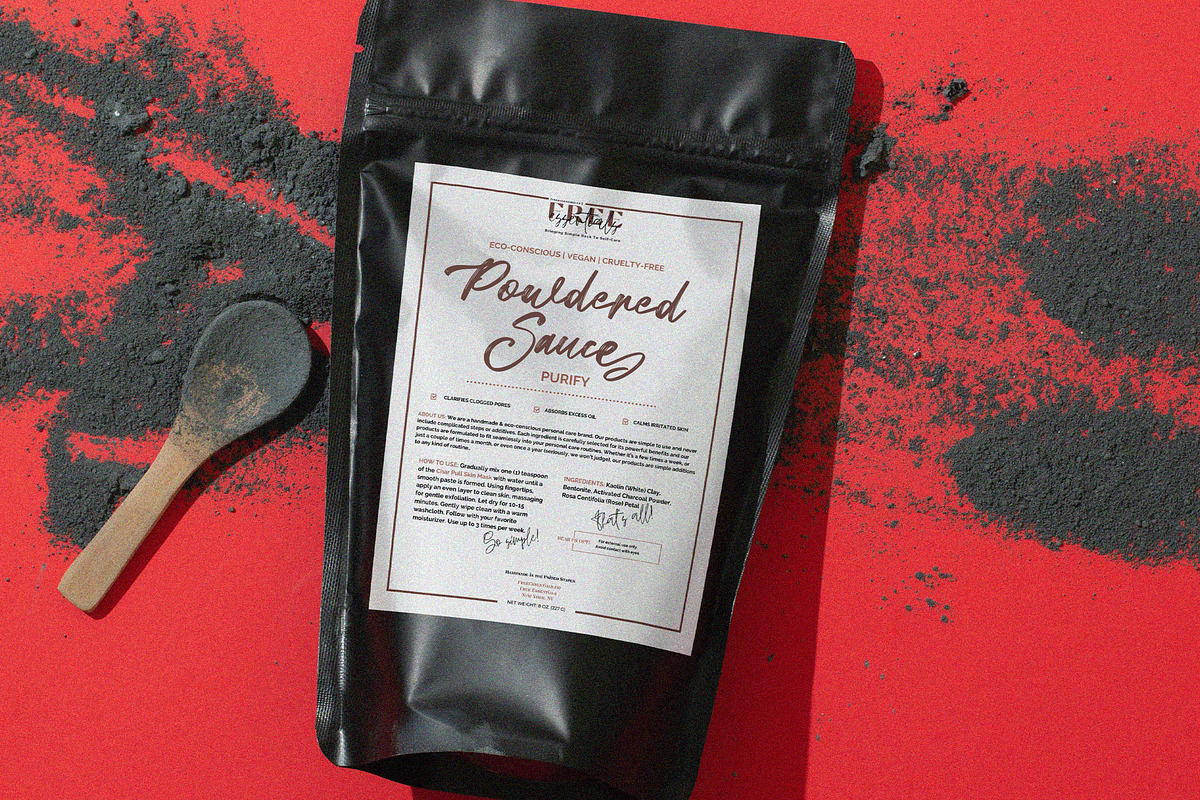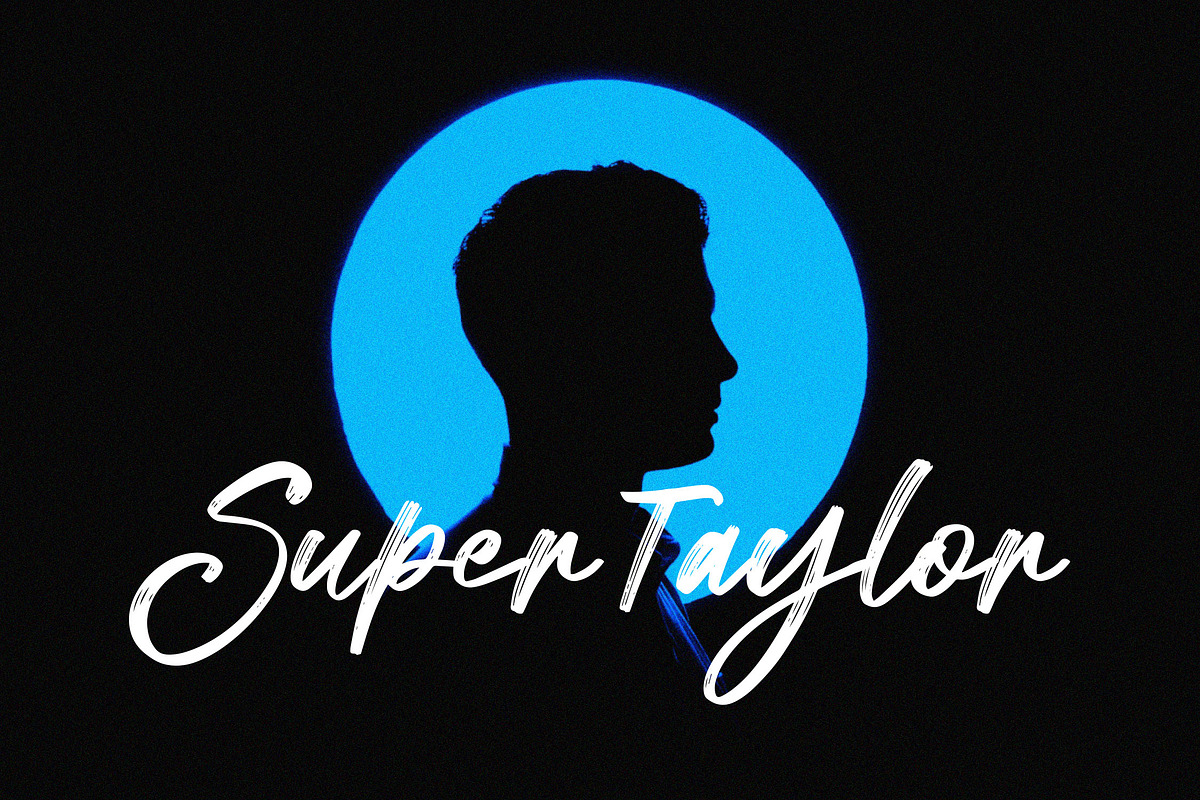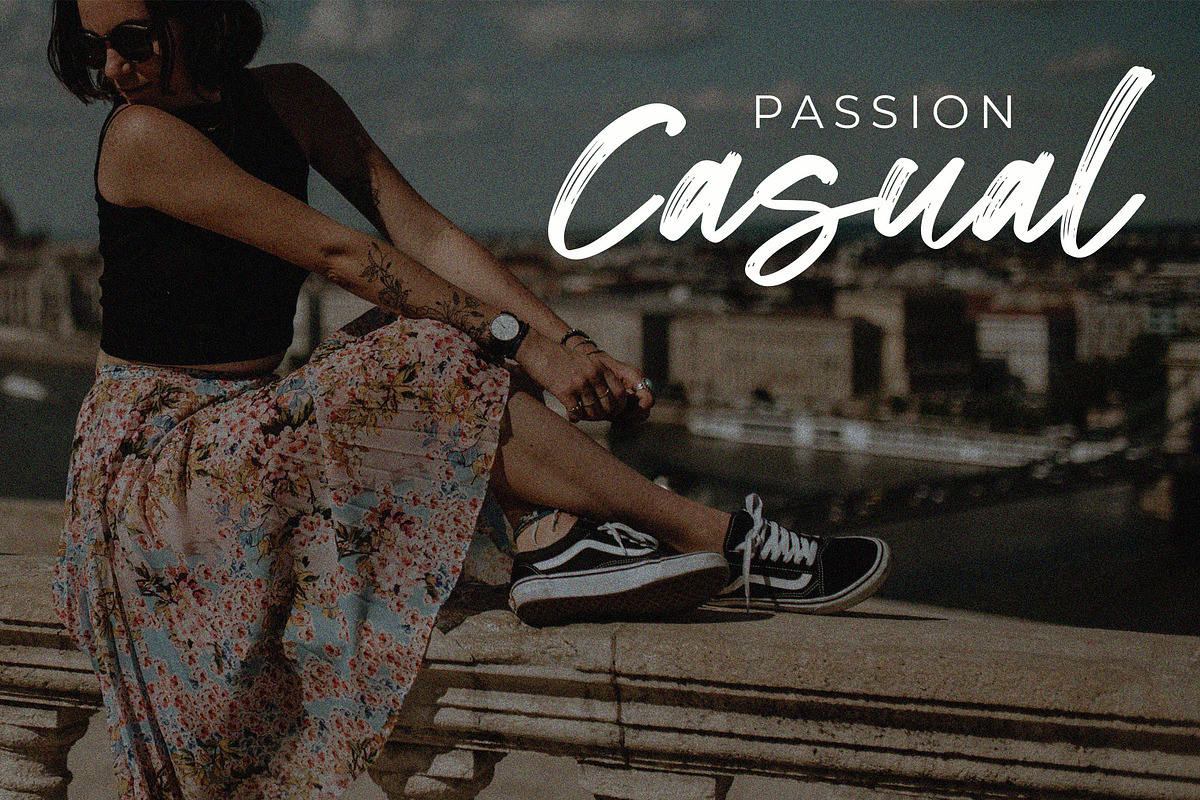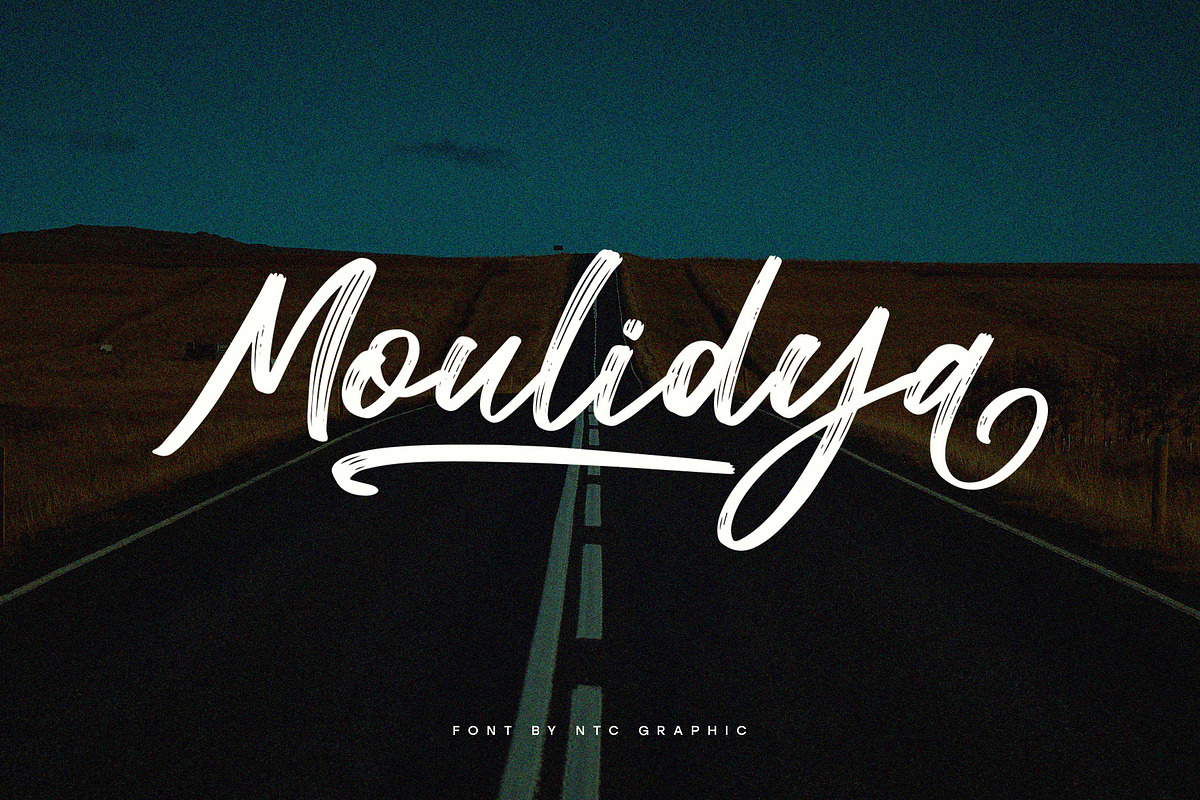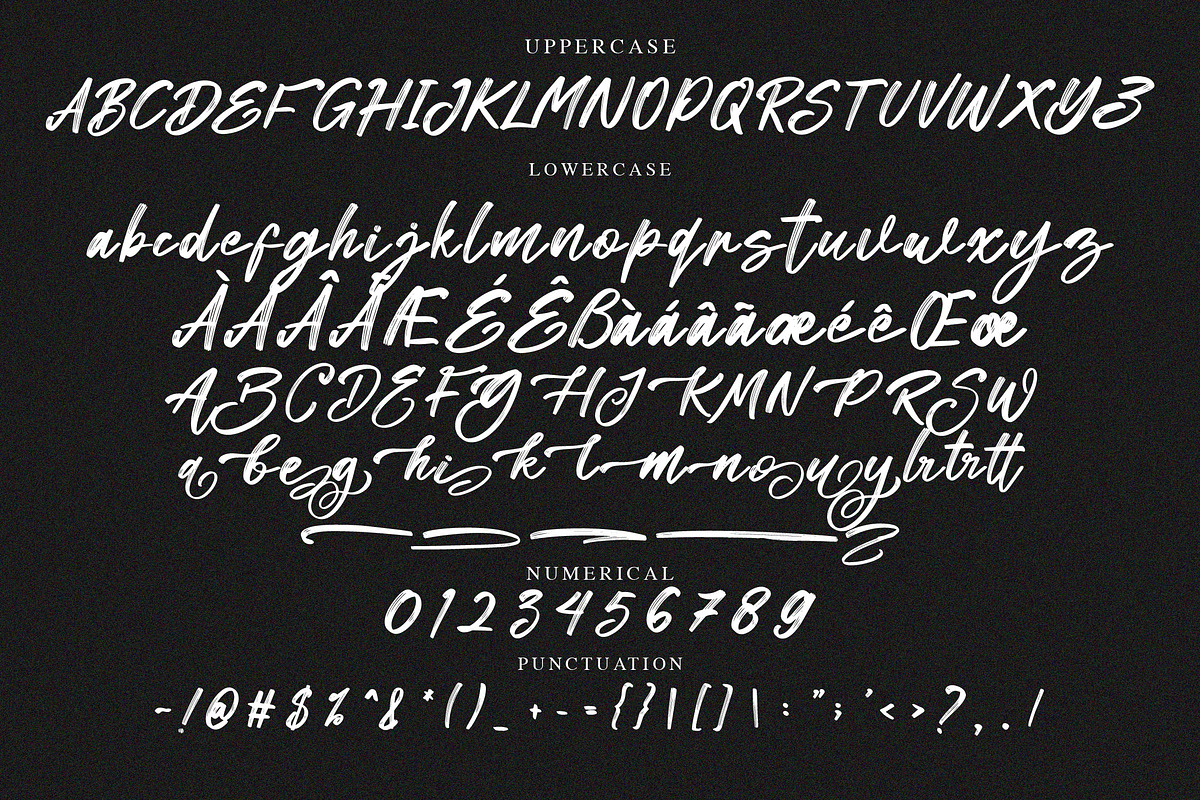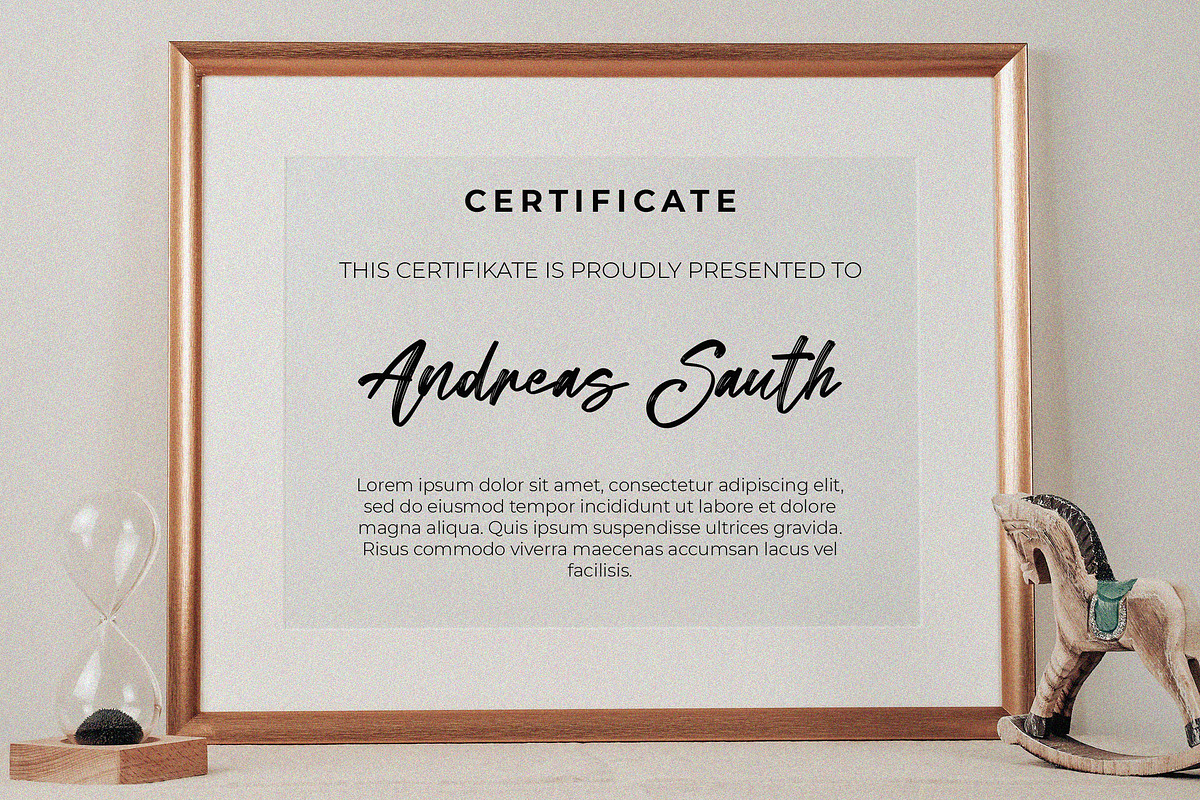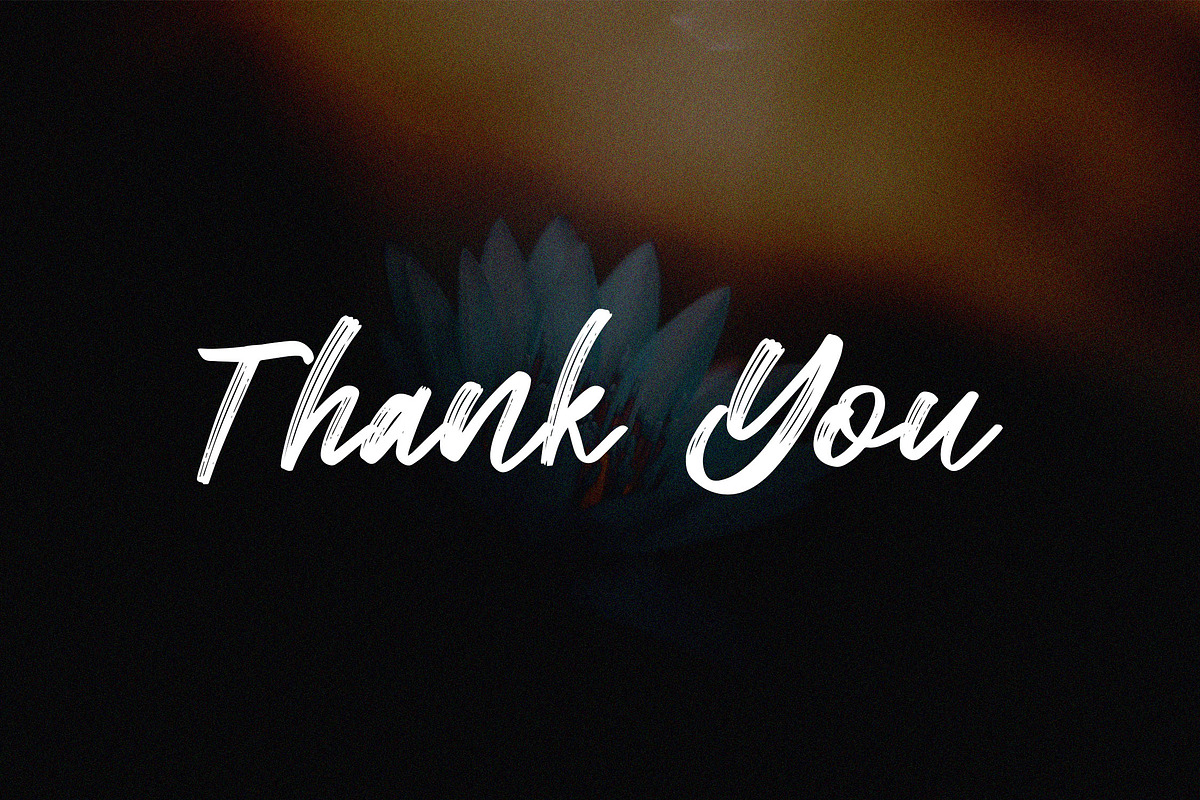
Moulidya Brush Script Font
Moulidya is a beautiful script font with handwritten brush style. Is a font style that is made with scratches and curvature shapes font characters are very beautiful. Can be applied to support the graphic appearance of the product to be more attractive and unique.
- Stylistic Alternate